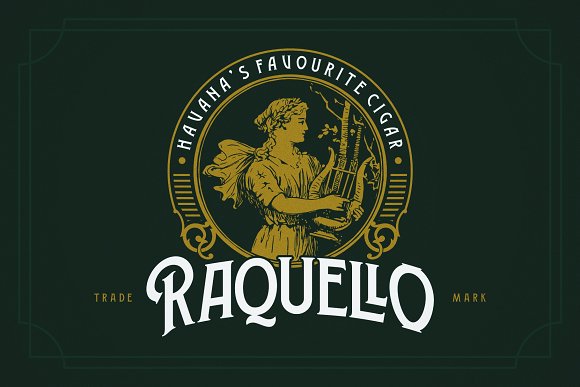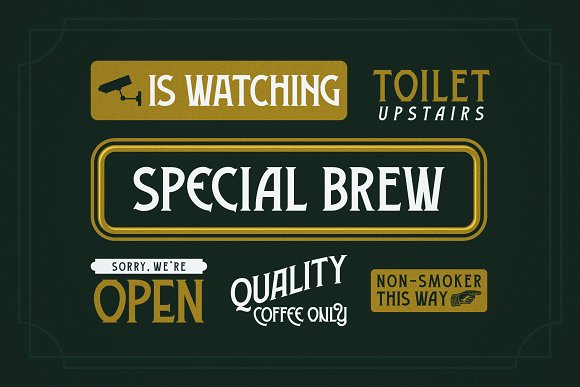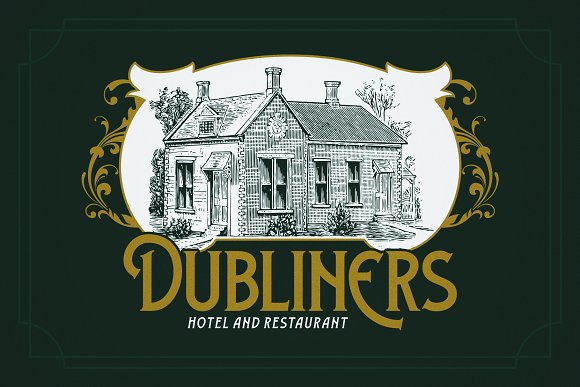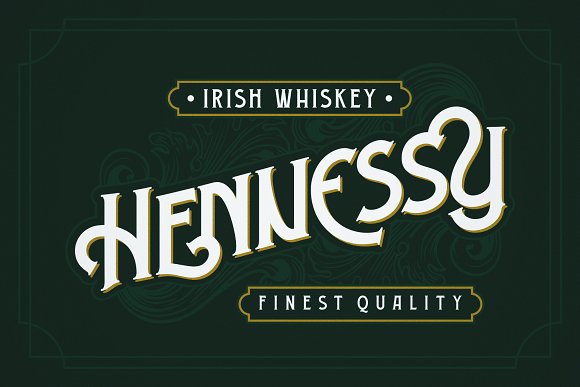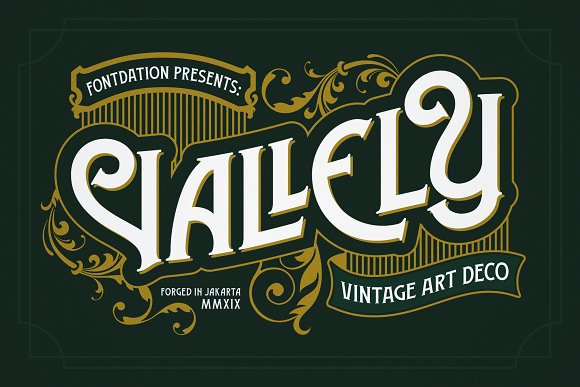
Vallely Vintage Font
It’s perfect for you to give your design a vintage touch. This is an original vintage font, perfect for give your design an authentic touch. Introducing Vallely Font. It is design and shared by Twicolabs Fontdation. Vallely Vintage Font – a classic art-deco-ish serif that are inspired by the old typography/letterings used in packaging labels and advertisements. This font is loaded with 300+ glyphs, packed with lots of alternate characters, gives you various letter combinations to play with. If you’re a fan of classic and art-deco ish typography, make sure you add this font to your design toolbox.